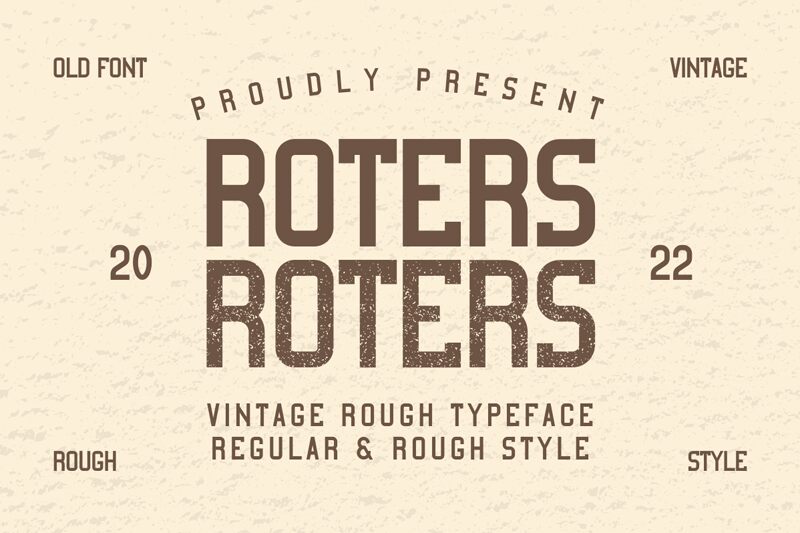
Roters
Roters - a captivating display font that transports us to a bygone era. Designed by the talented Muhammad Yafinuha, this retro-inspired gem exudes a sense of vintage charm and bold character.
Its condensed yet striking silhouette commands attention, radiating a timeless aesthetic that seamlessly blends traditional influences with a modern flair. Roters is the perfect choice for designers seeking to add a touch of nostalgia and visual intrigue to their projects, whether it's vintage-inspired branding, eye-catching event posters, or dynamic editorial layouts.
Its versatility shines through, making it a versatile asset for creatives who appreciate the allure of the past and the power of impactful typography.